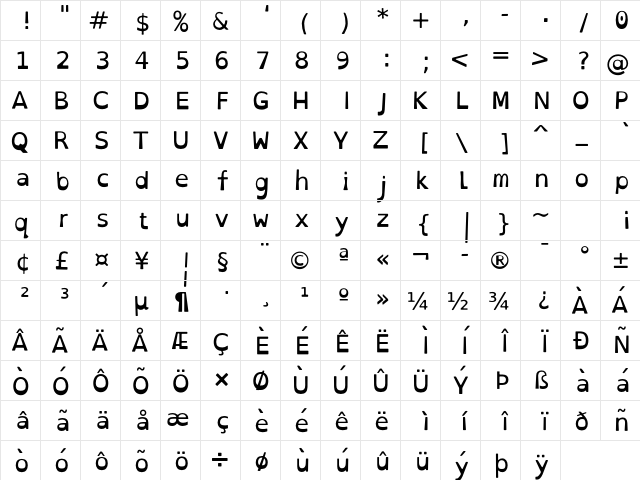
OpenDyslexicMono Regular
| Designer | Abelardo Gonzalez |
Design Context for OpenDyslexicMono Typeface
OpenDyslexicMono uses fixed-width spacing throughout, giving it the structured, systematic character associated with coding environments and technical documentation.
Well-suited to data-driven dashboards, coding tutorials, and any design that wants to reference the world of programming.